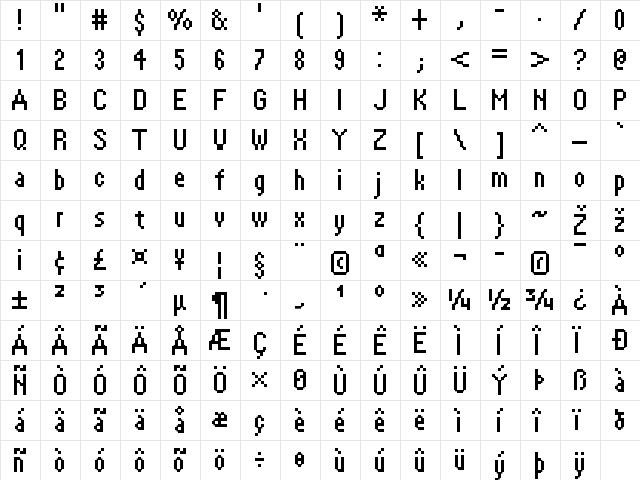
FFF Lighthouse Extended Regular
Design Context for FFF Lighthouse Extended Typeface
FFF Lighthouse Extended is a composed and adaptable typeface that performs quietly and consistently across a wide range of design contexts. Its slender proportions lend an understated elegance to any composition.